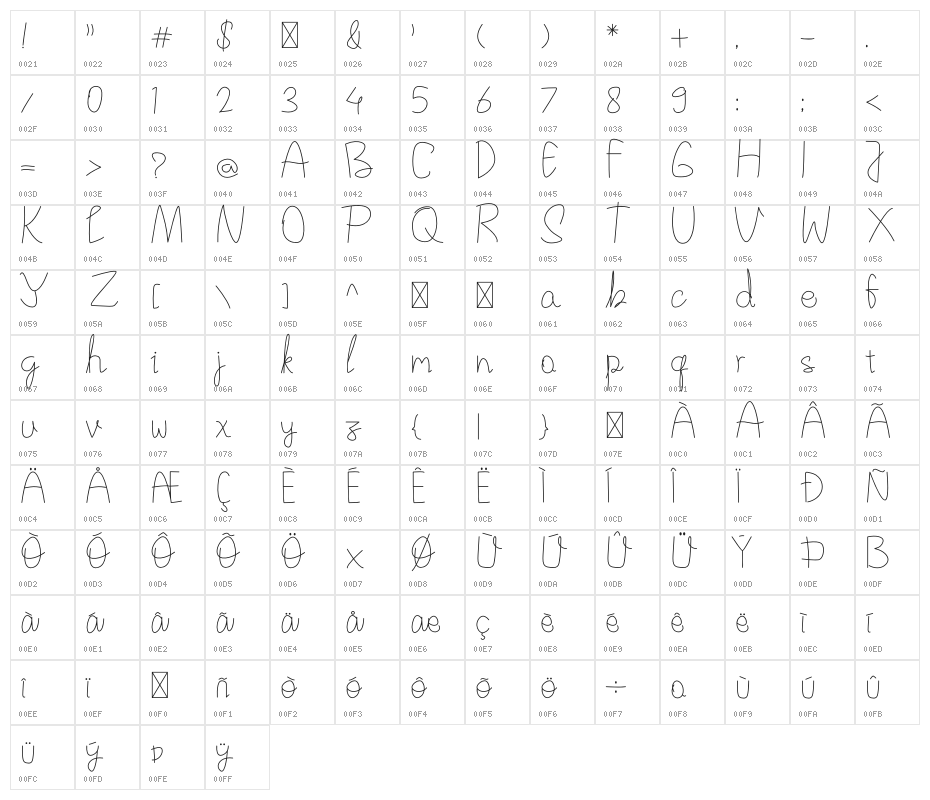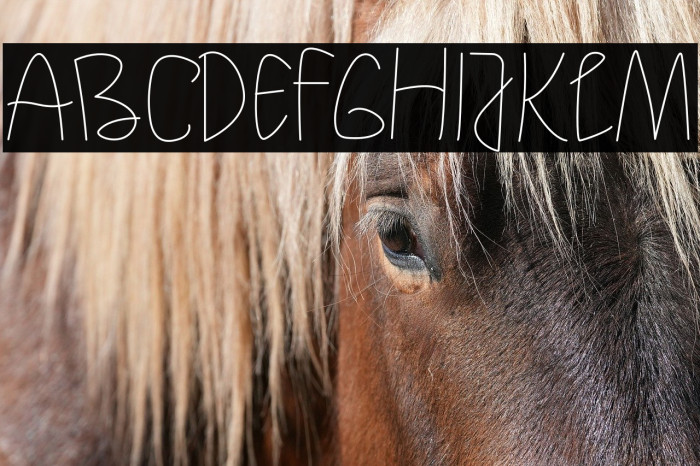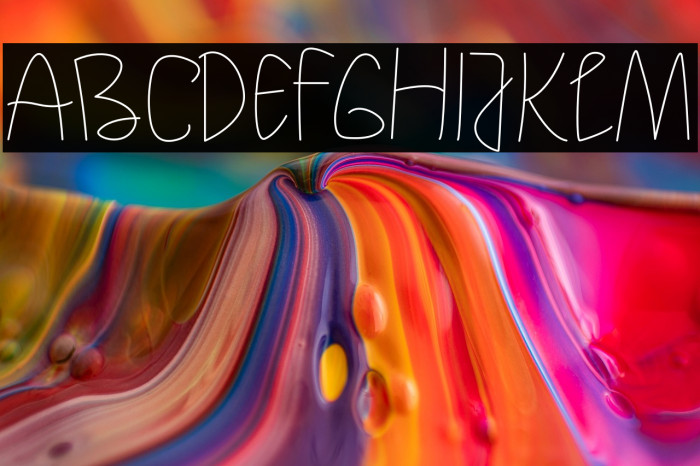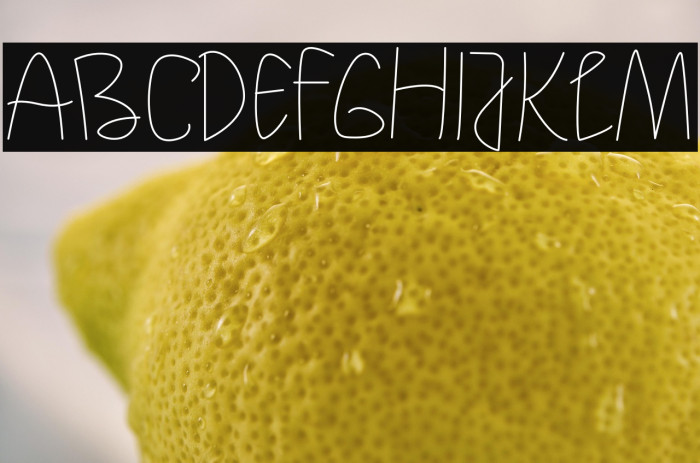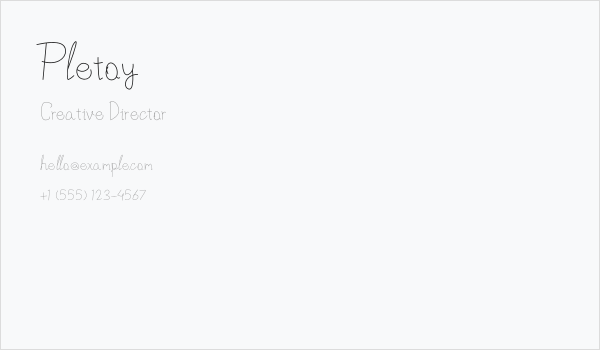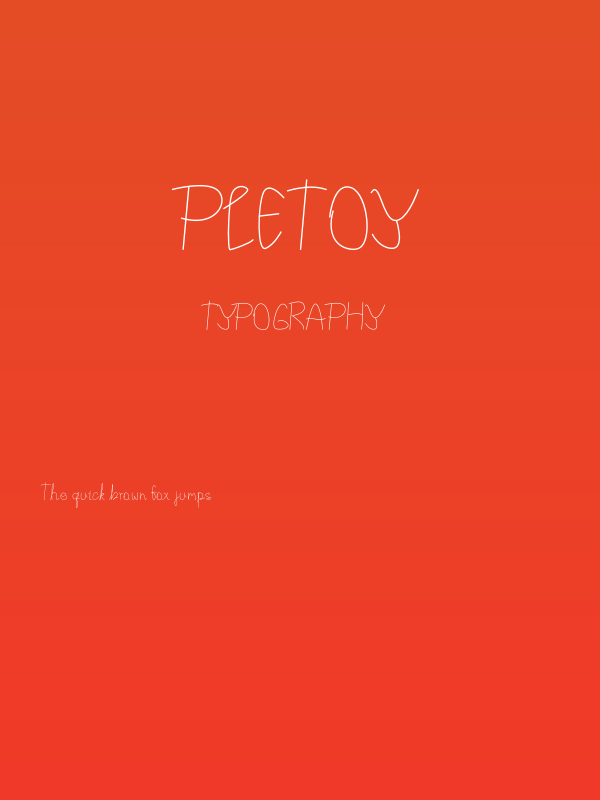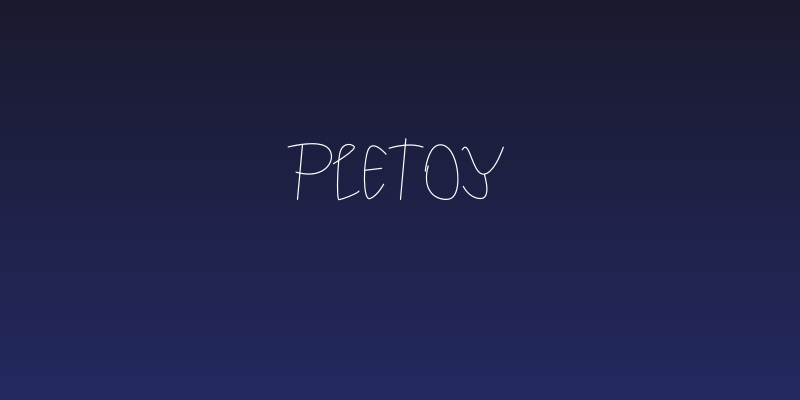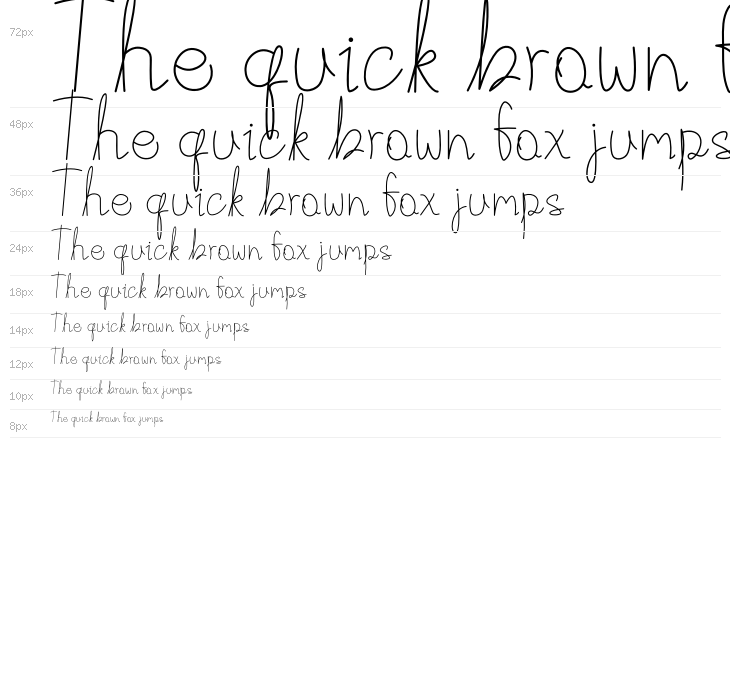
Pletoy Font
Pletoy Description
This font features a playful, handwritten style with a casual and informal appearance. The letters are thin and slightly irregular, giving them a whimsical and approachable feel. The uppercase characters are tall and narrow, while the lowercase letters maintain a consistent flow, enhancing the font's legibility. Numbers and special characters follow the same playful design, making them suitable for creative projects. The overall look is light and airy, perfect for adding a personal touch to any design.
| Proposed Projects | Ideal for greeting cards, children's books, personal blogs, and creative branding. |